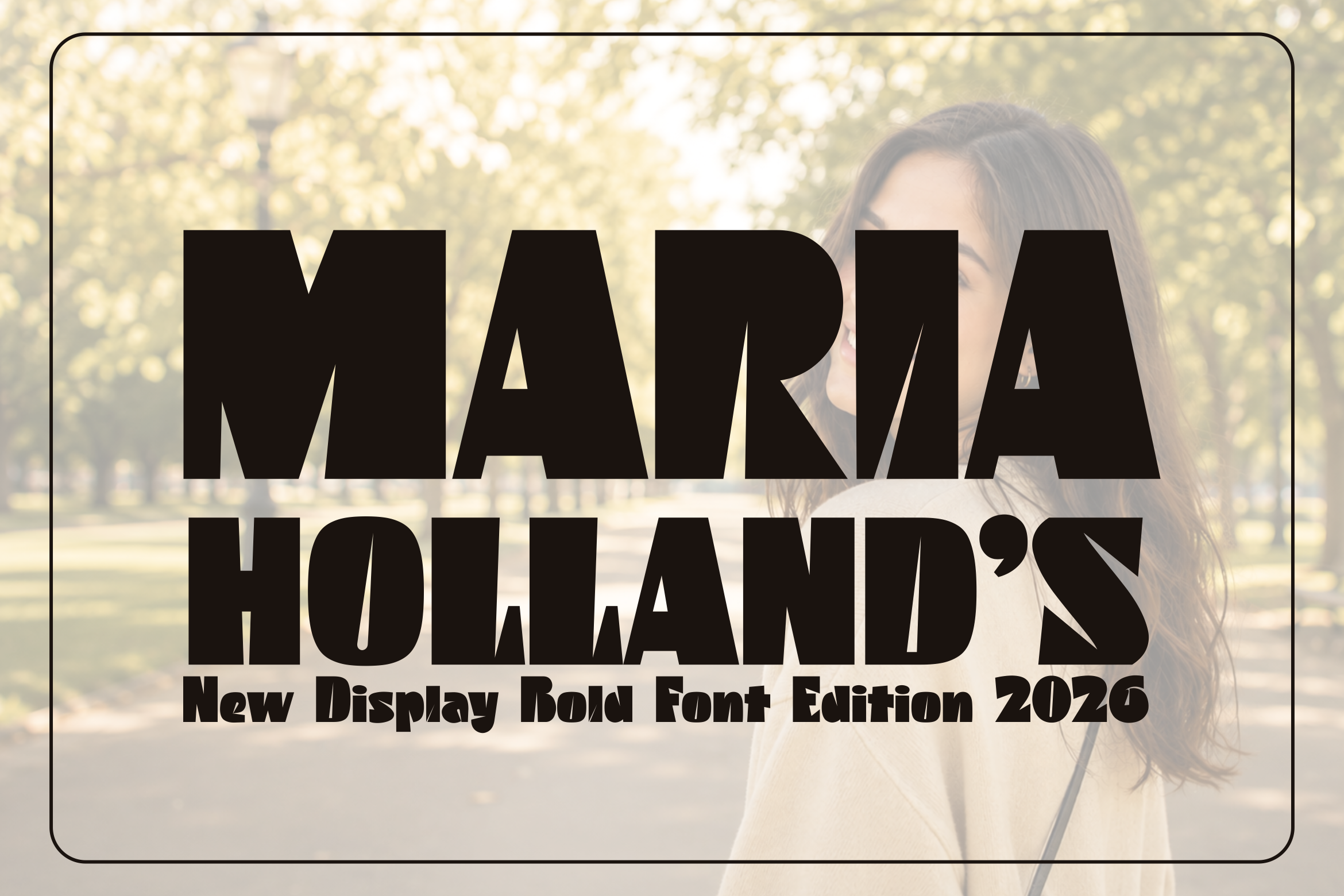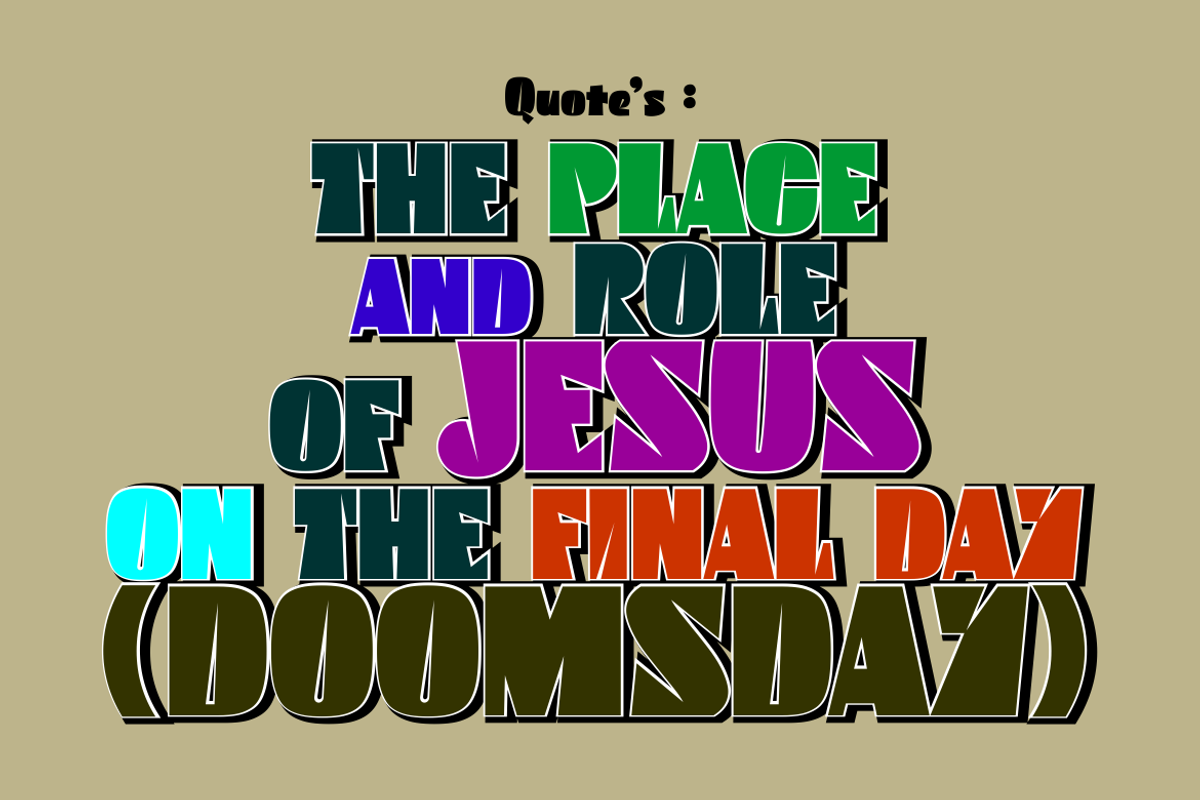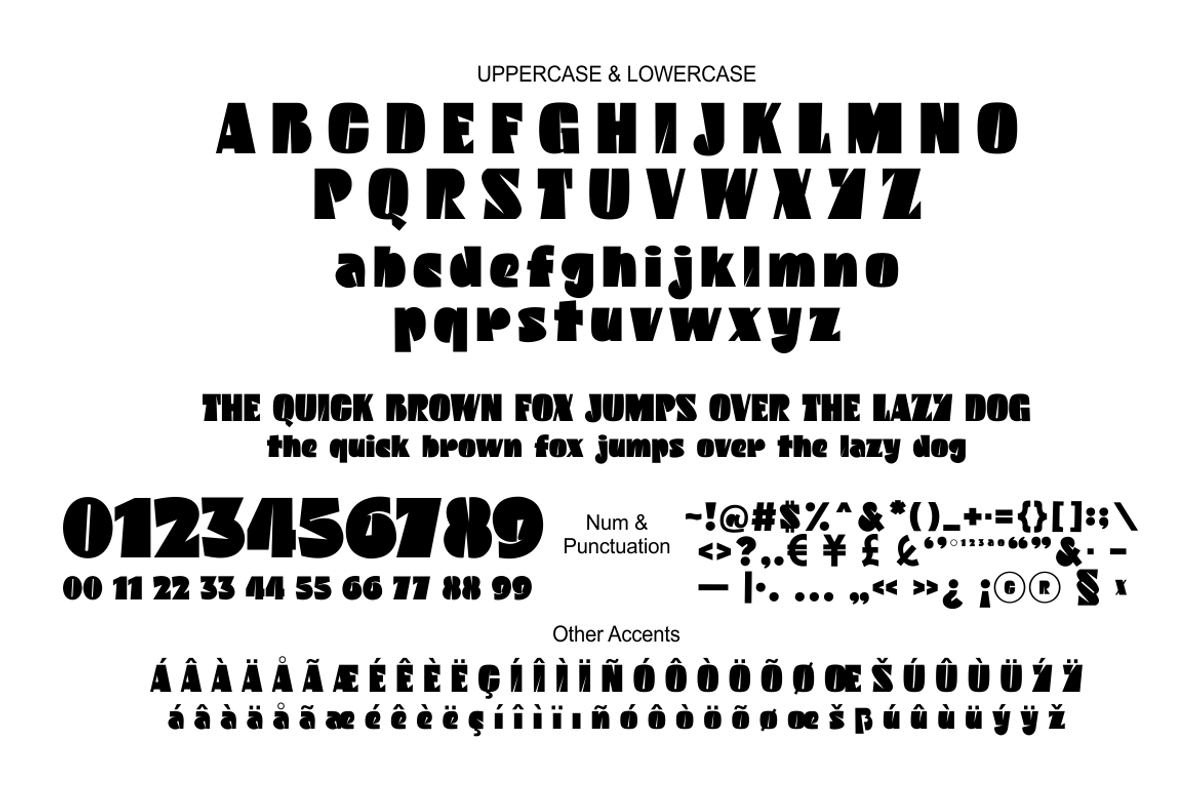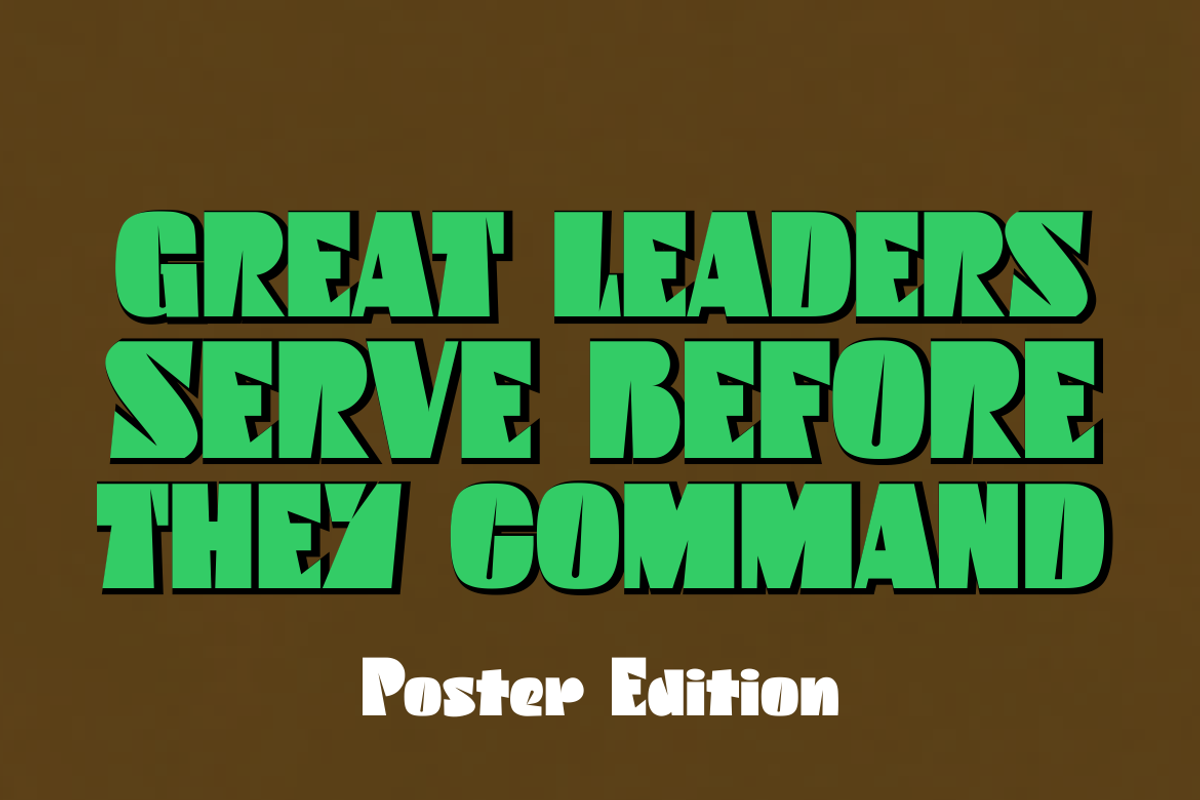
Maria Holland's | Bold Poster Font
Maria Holland's is a bold display stencil font designed to make a powerful visual impact. Featuring strong geometric letterforms with unique cut-out stencil details, this typeface is perfect for eye-catching headlines, posters, branding, packaging, apparel, sports graphics, social media, YouTube thumbnails, and modern editorial designs.
The font combines a bold industrial aesthetic with contemporary styling, making it ideal for projects that require confidence, energy, and high readability.